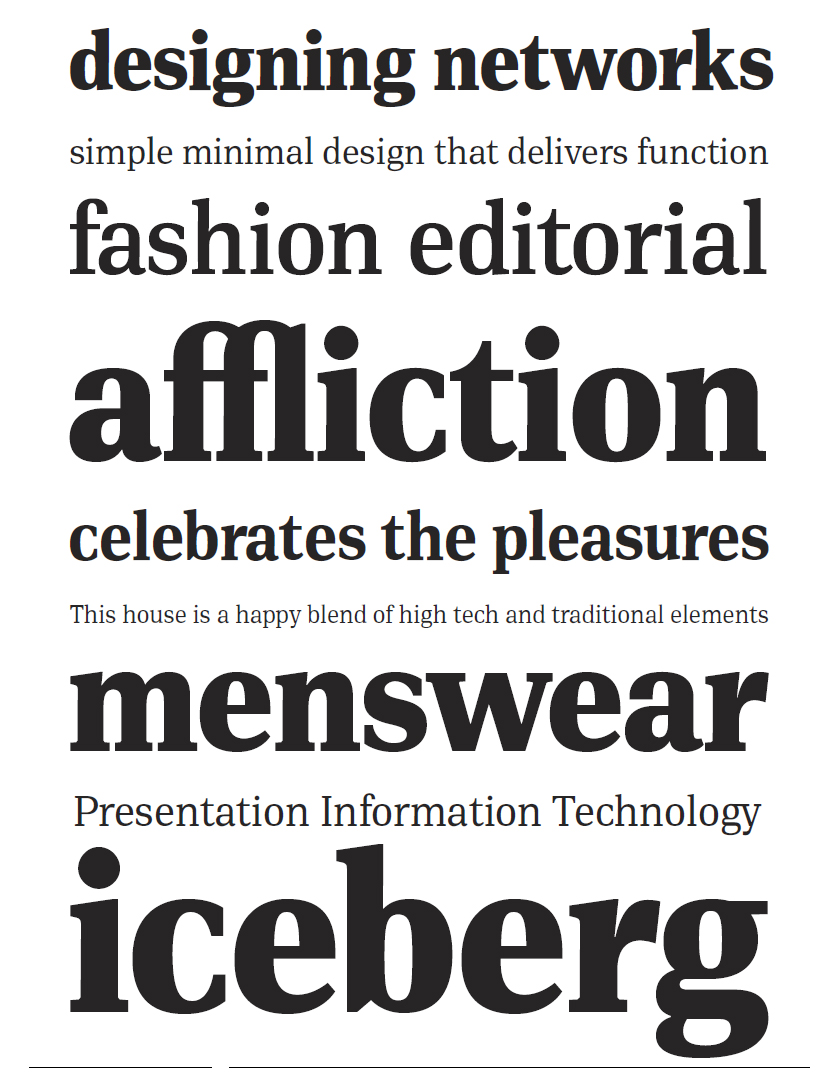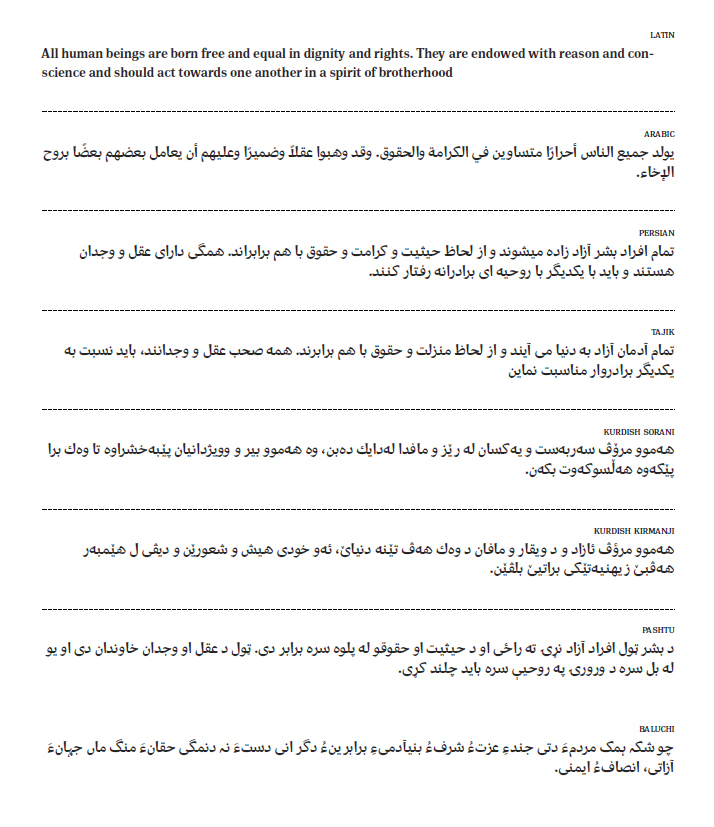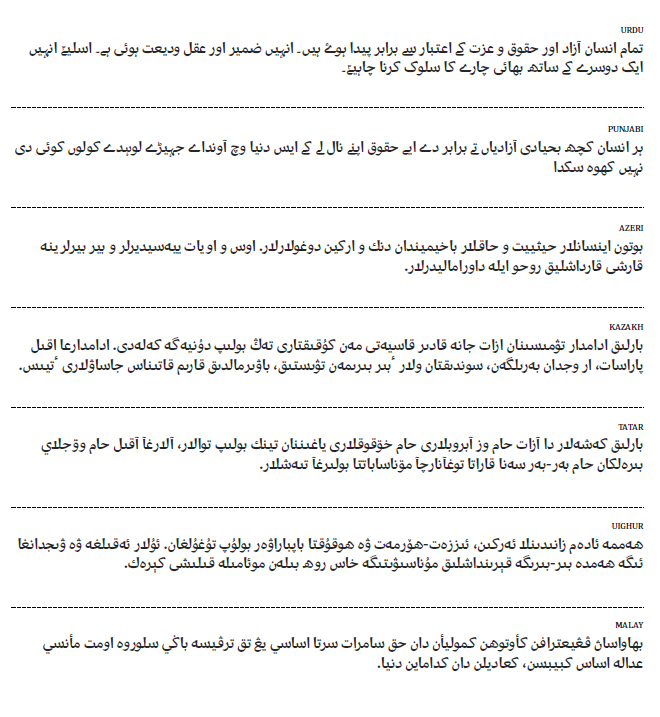
New Arabic Font Release by Parachute®
Parachute® font foundry has just released their new Arabic font, DIN Serif. DIN Serif was originally designed as a low contrast typeface with functional and distinct novelties. Its solid, simple nature directed the development of its Arabic counterpart away from the traditional calligraphic styles, towards a more simplified contemporary design mixing Naskh characteristics with early Kufi style. Its Arabic letterforms carry through the feel of the original design whilst several basic characters originated on paper after many tedious trials with a traditional calligraphic bamboo pen. This provided a deeper understanding of its structure and visual rhythm, before converting the letterforms into a digital form.
Back in 2007, Parachute® was the first independent type foundry to offer a diverse collection of more than 40 contemporary multiscript typefaces that supported simultaneously Latin, Greek and Cyrillic. The list included typefaces such as Centro, Champion Script, Beau Sans, DIN Text, Square Sans. Later on in 2010, Parachute® set a new standard by releasing the first-ever Arabic version of DIN. From then on, its commercial list of Arabic typefaces has expanded.
Arabic with practical arabic symbols
Arabic with mark positioning (in red)
Arabic Text Sample
Latin specimen
Text in several supported languages